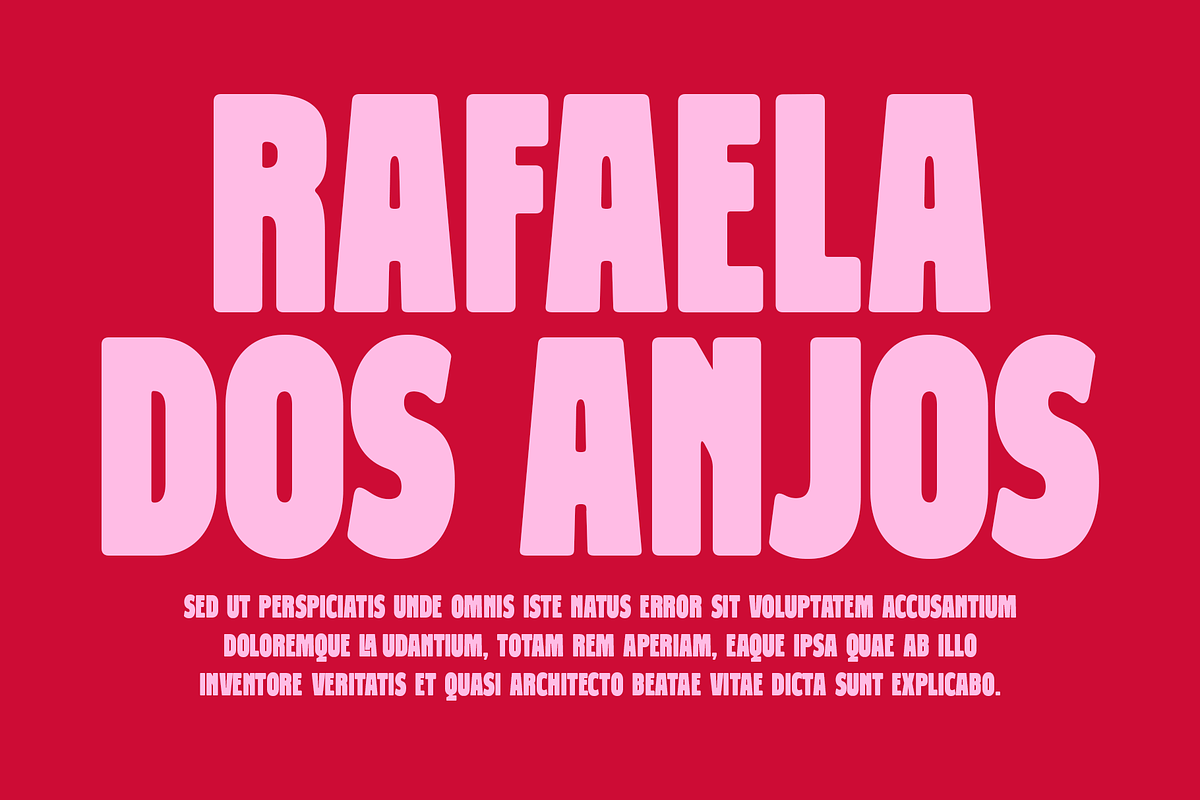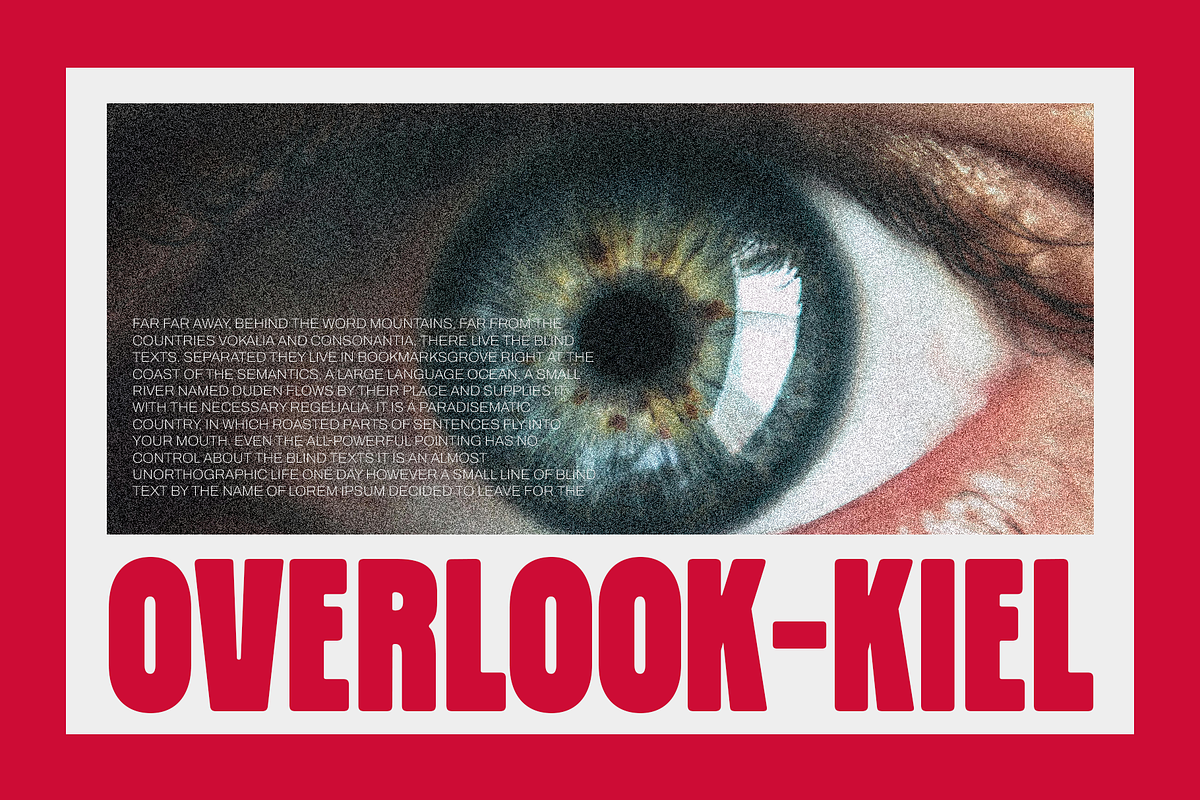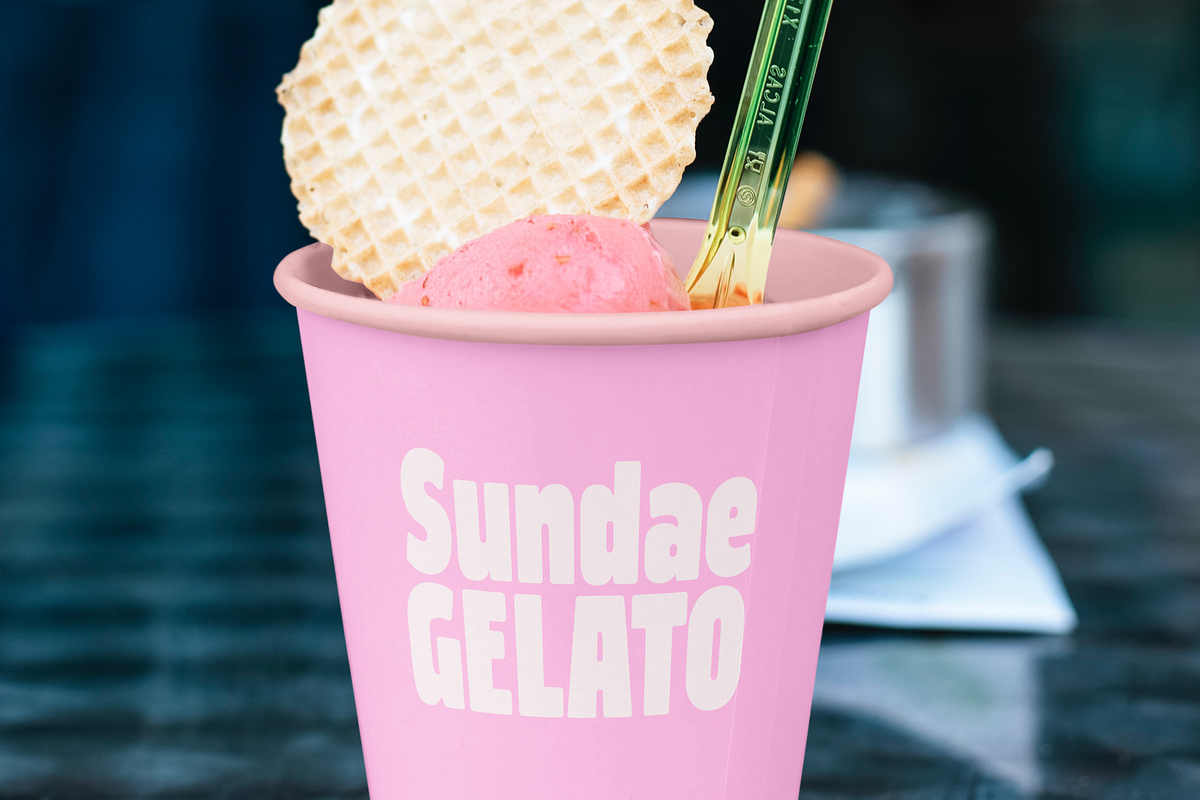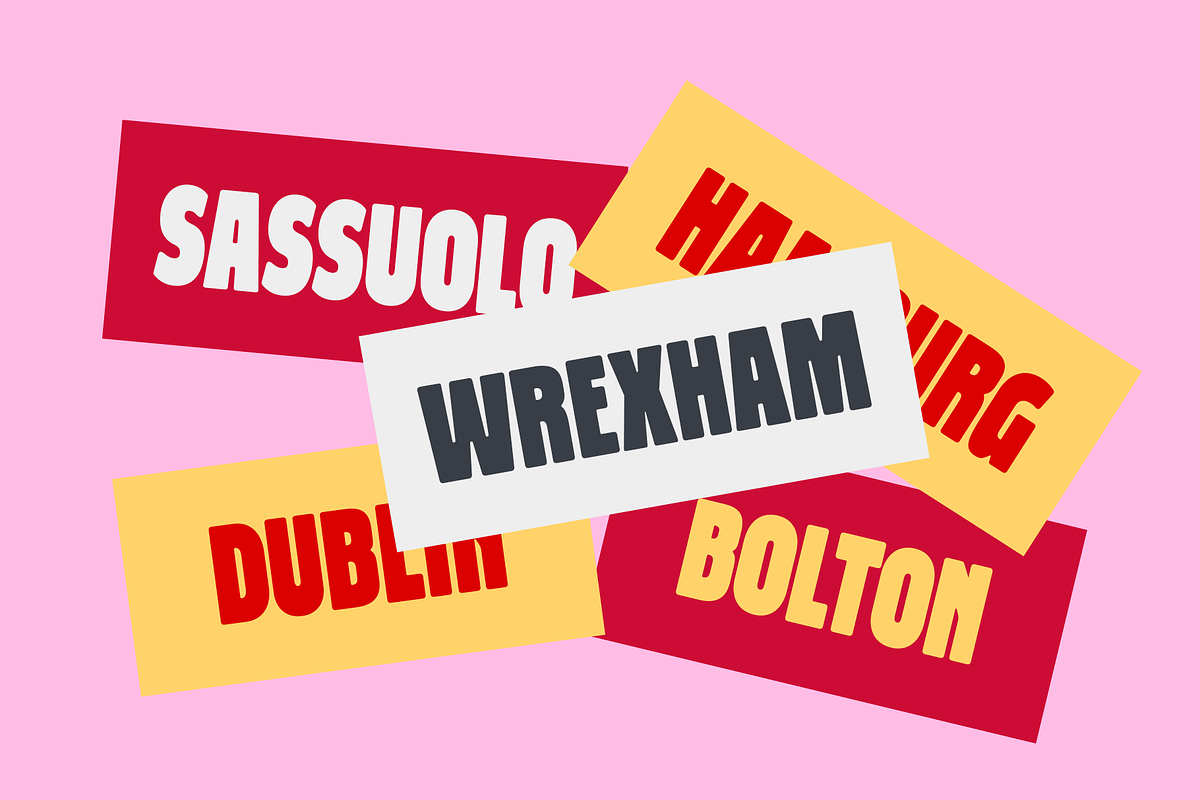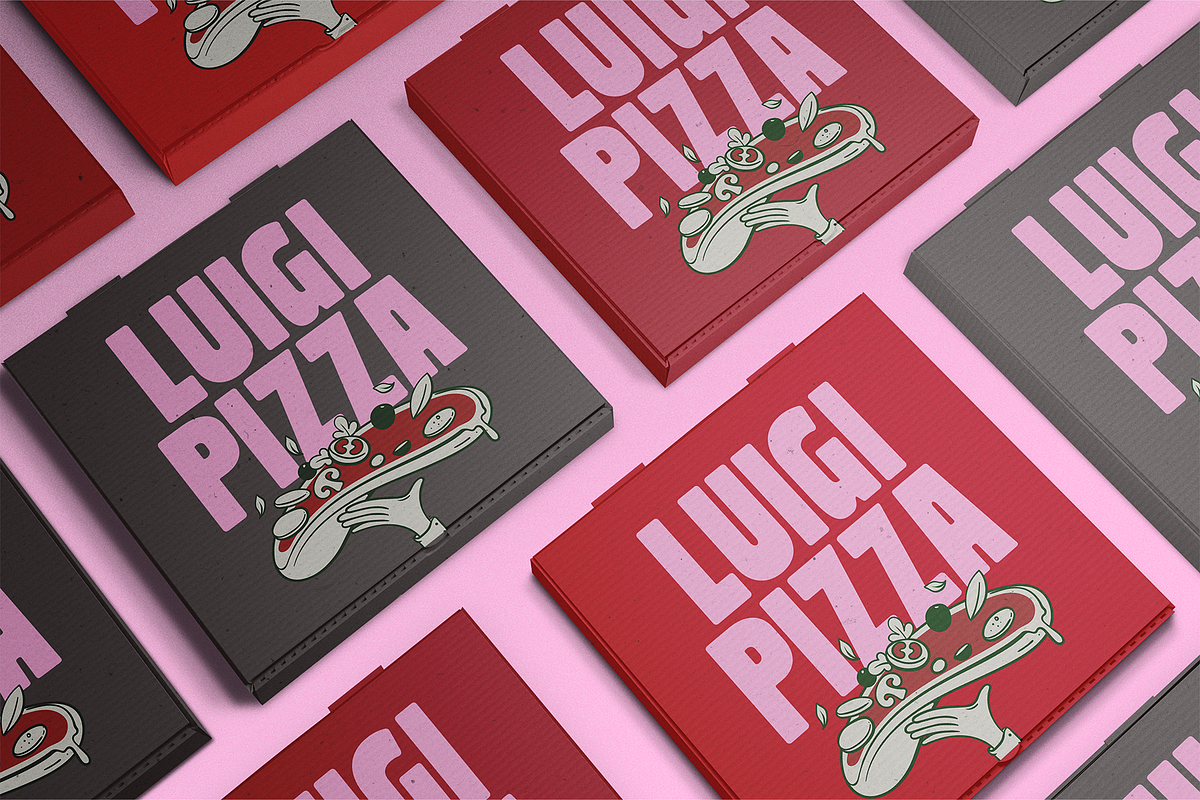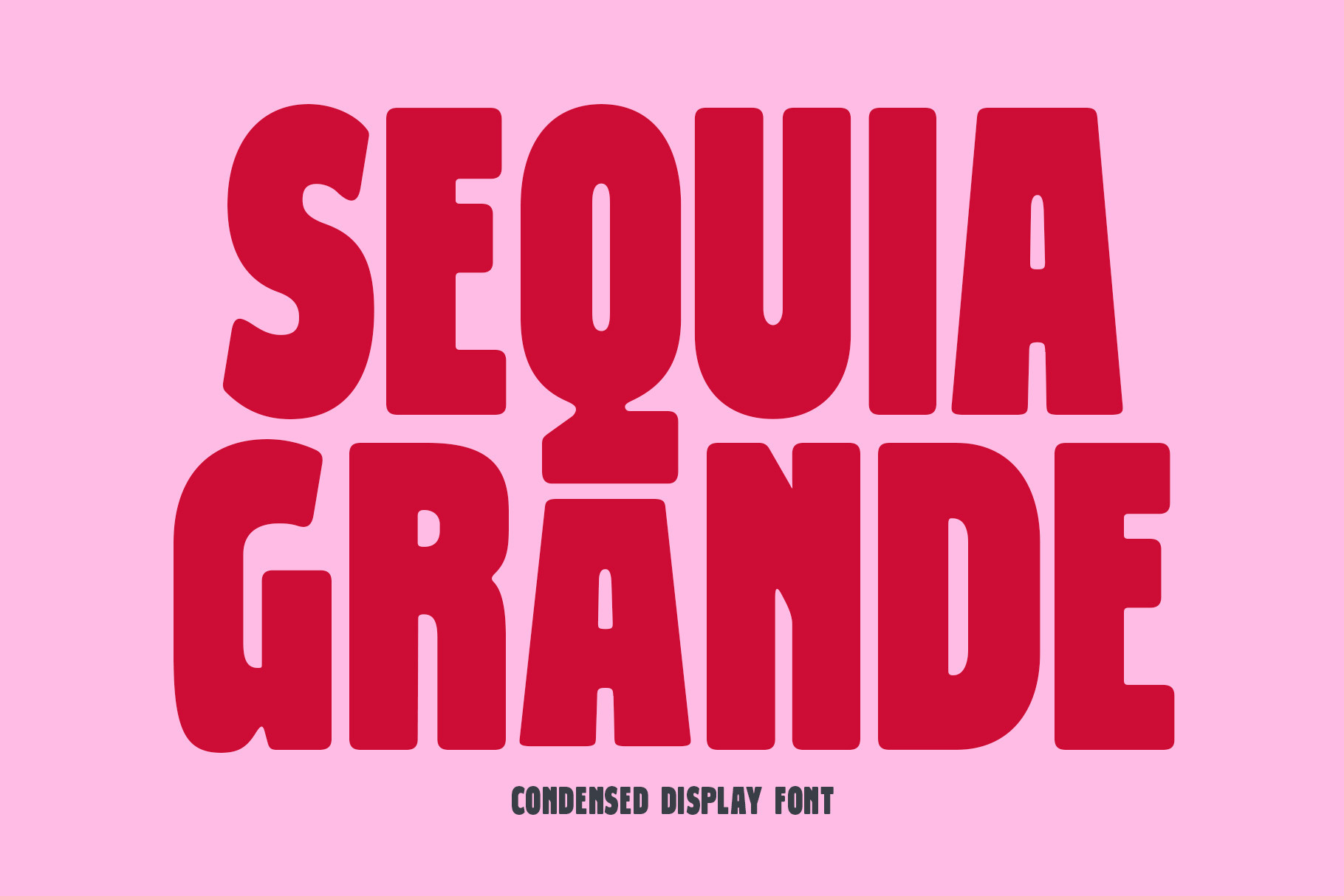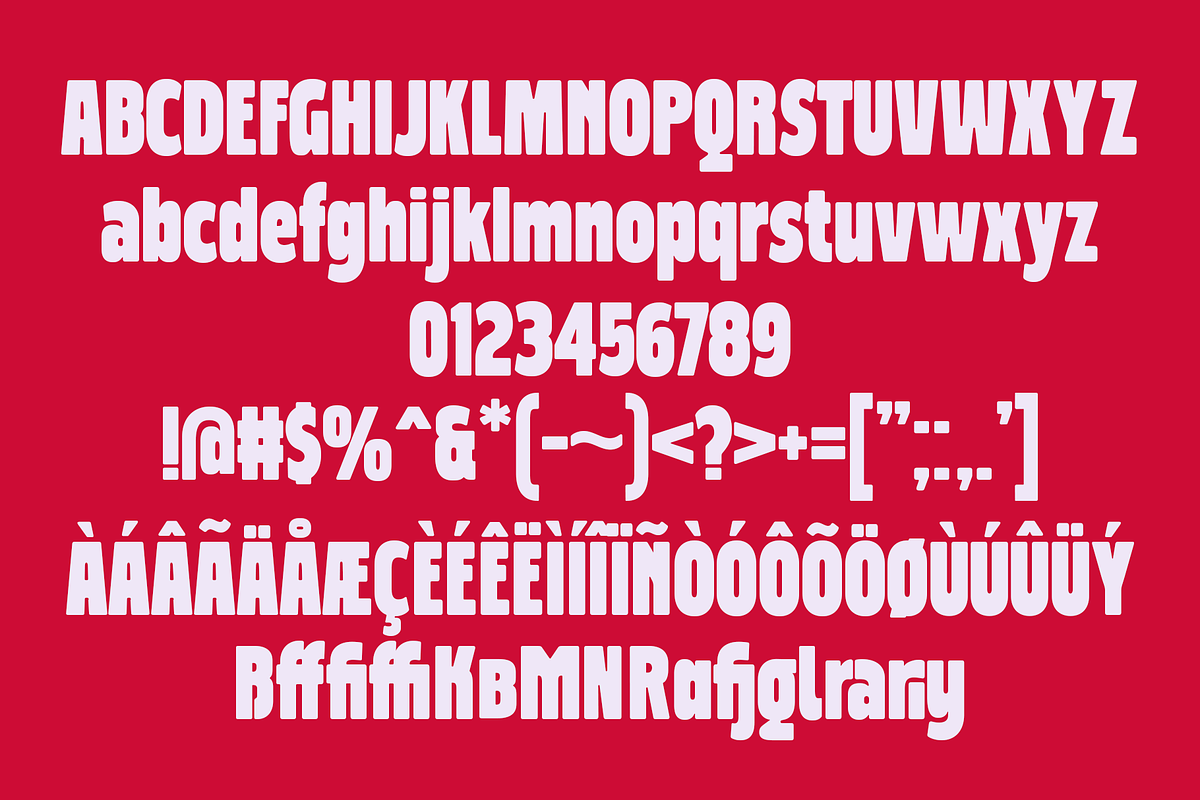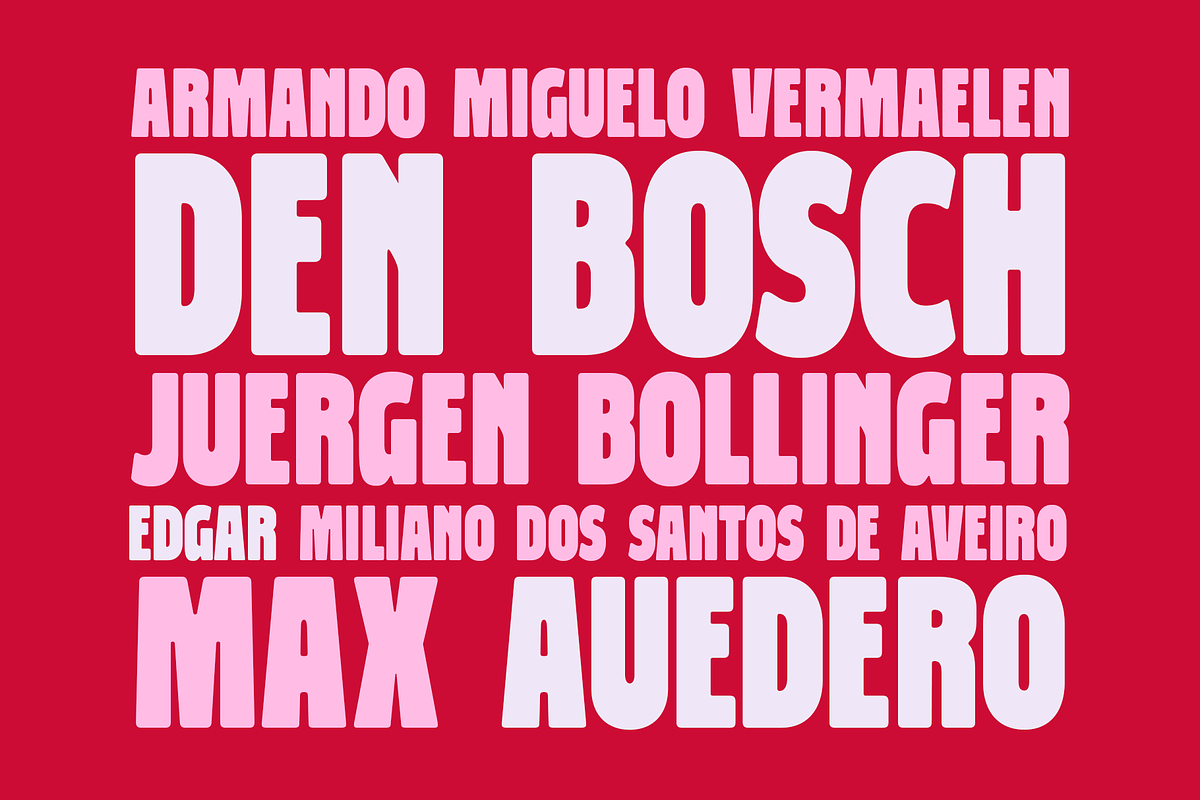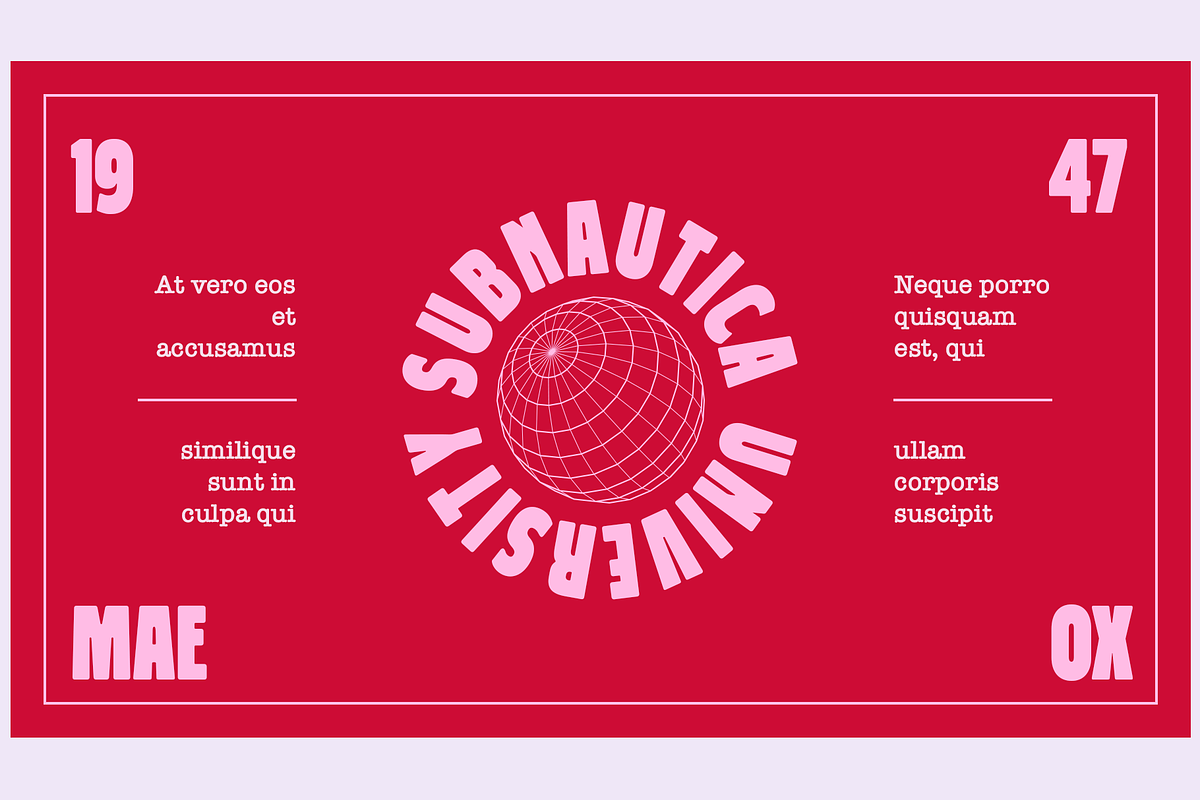
Sequia Grande - Condensed Font
Meet Sequia Grande—a condensed display font that’s big, rounded, and instantly legible. Built for headline impact, it features soft corners, tight spacing, clean kerning, and essential sets (A–Z, numerals, punctuation, basic multilingual Latin) in desktop & webfont formats.